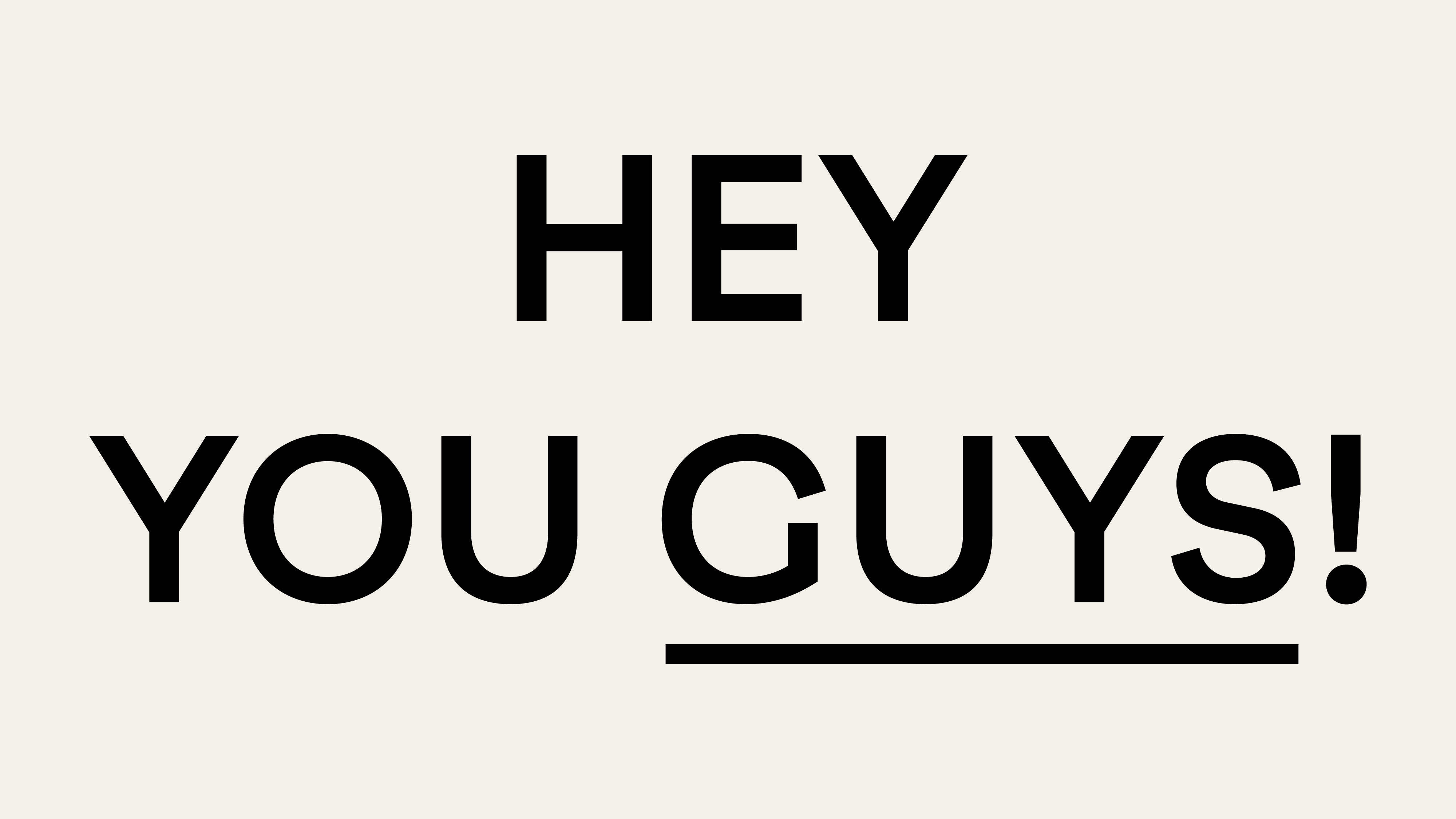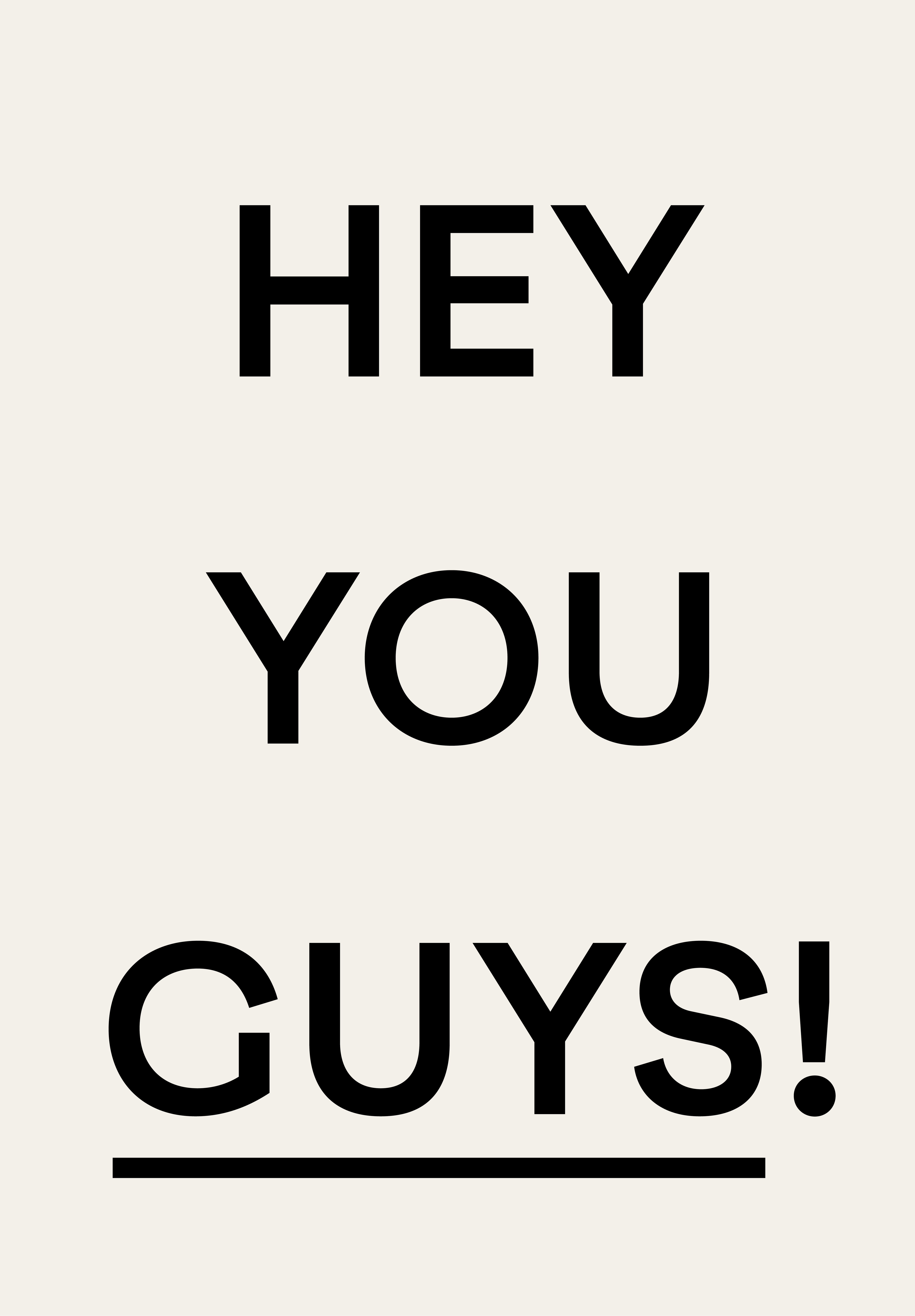
F37 Grotesc®
Typographical inspiration is often sparked by a tiny oddity or quirk. That’s the story of F37 Grotesc, the font that was born from a serious case of overbite.
F37 Grotesc comes in two versions, one for text, which is more legible and optically balanced. And one for display, with the quirkiness and overbite turned up to 11.
Beauty is subjective. It’s an attitude.
We are unique in our own tastes, opinions, expectations and the way in which we see or feel beauty. Find the beauty in the ugly. Open yourself up to discover something not as noticeable at first glance. Refuse to be repulsed by what you see. Embrace the ugliness and transform it into something beautiful. That sweet spot between the ugly and beautiful is where the magic happens.